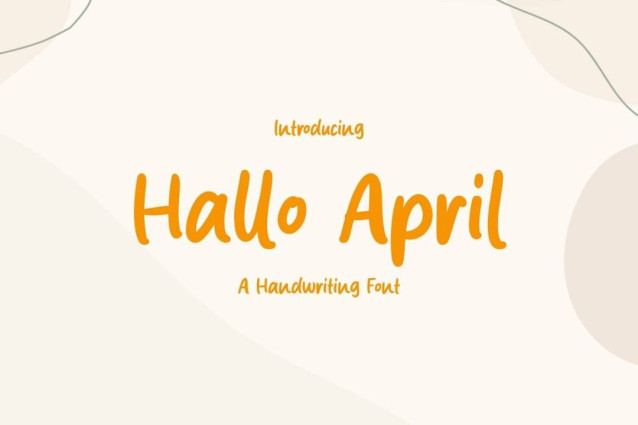
Hallo April Font
Hallo April Font is a simple and friendly handwritten font. Its natural and unique style makes it incredibly fitting to a large pool of designs. The only limit is your imagination!